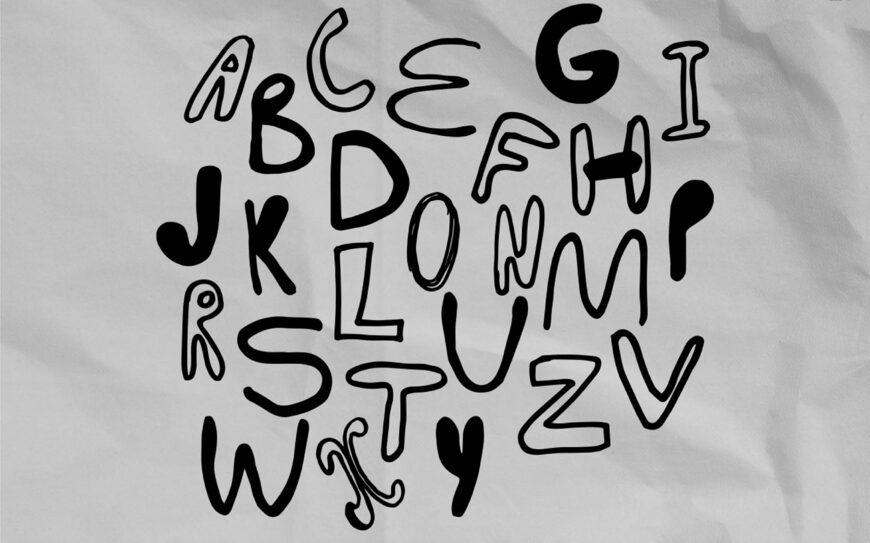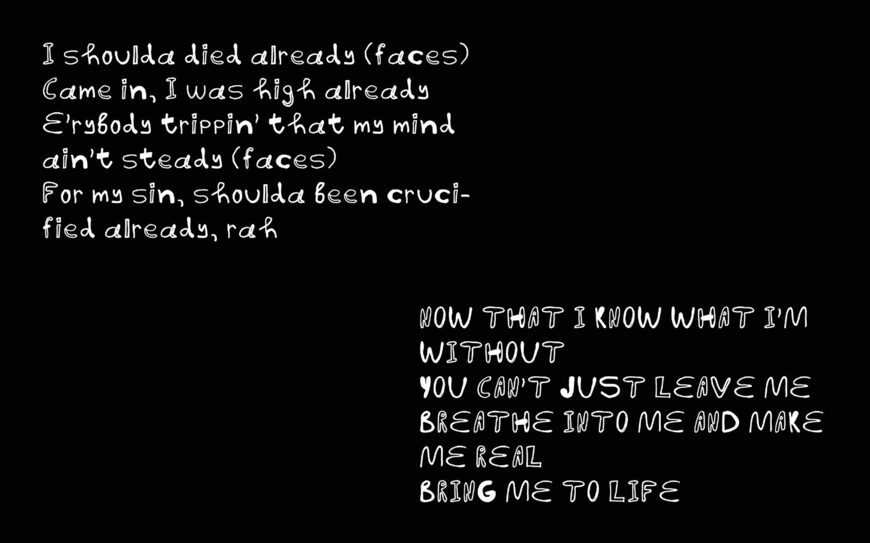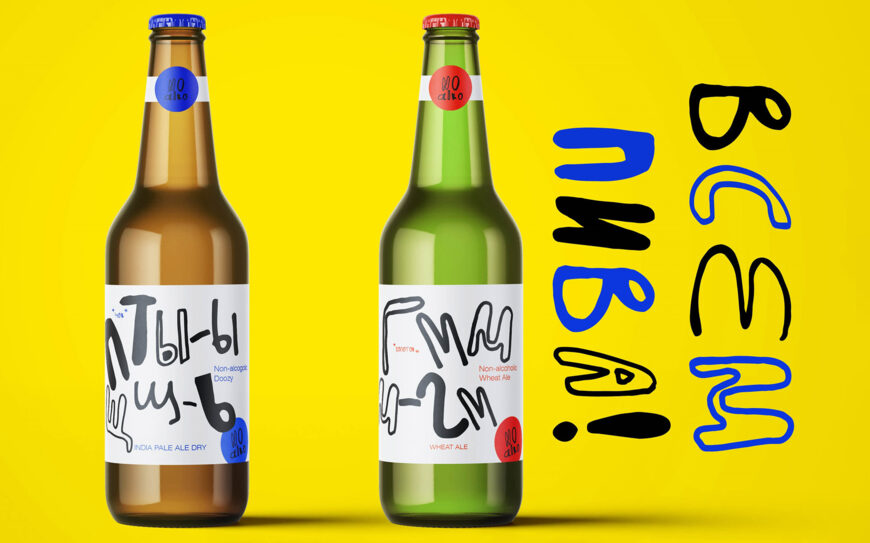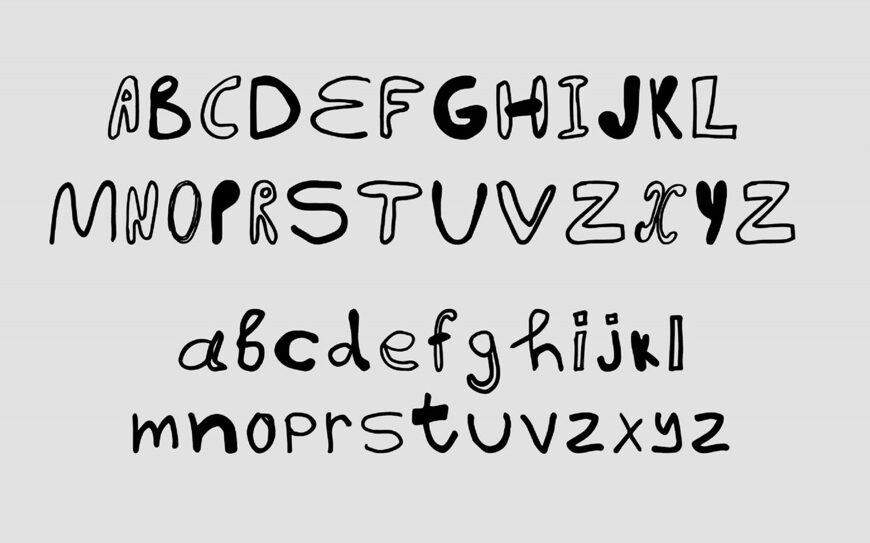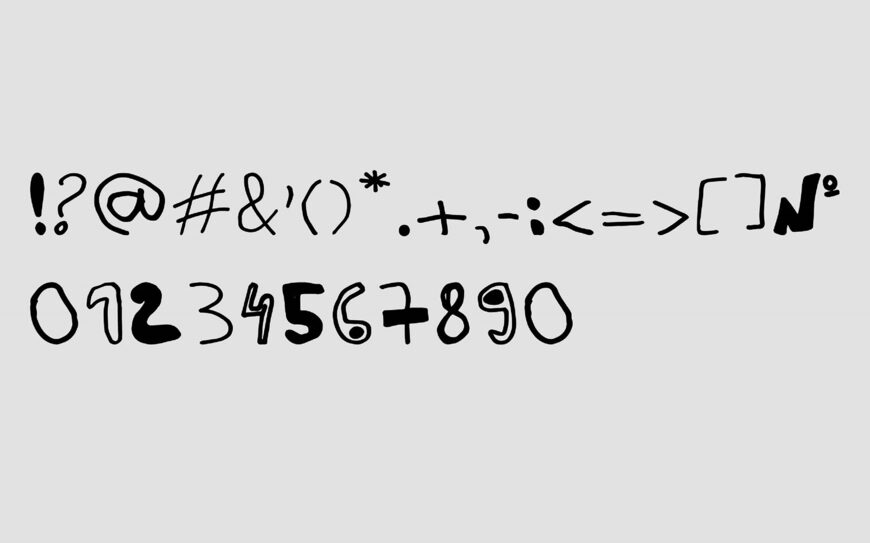
Designed by Katerina Volokitina, Emotical is an expressive, hand-drawn display typeface crafted to inject raw energy and personality into creative projects. Featuring playful, distorted letterforms and high-contrast filled glyphs, it brings a bold, artistic touch to packaging, posters, and apparel.
The font includes uppercase, lowercase, numbers, symbols, and full Cyrillic script support, making it a versatile choice for modern, eye-catching branding and editorial designs across multiple languages.